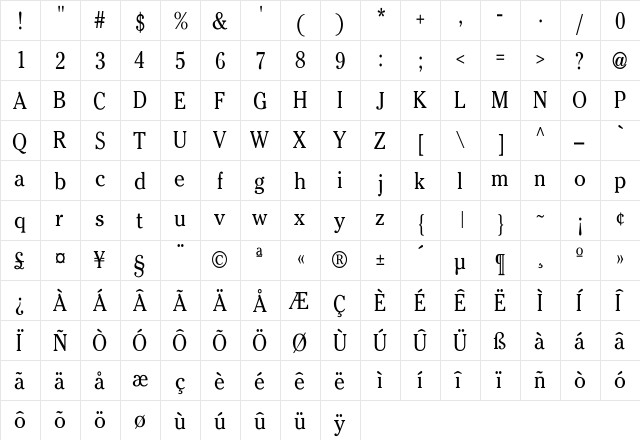
CheltenhamCnd-N Regular
Design Context for CheltenhamCnd-N Typeface
CheltenhamCnd-N offers clean, dependable letterforms without strong stylistic allegiance, making it a practical choice for designers who need flexibility.
Pro Tip: Use CheltenhamCnd-N in both headline and body roles to test its range before committing to a single application.